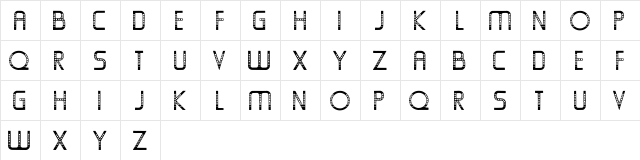
OldFolksShuffle Regular
Design Context for OldFolksShuffle Typeface
OldFolksShuffle is a composed and adaptable typeface that performs quietly and consistently across a wide range of design contexts.